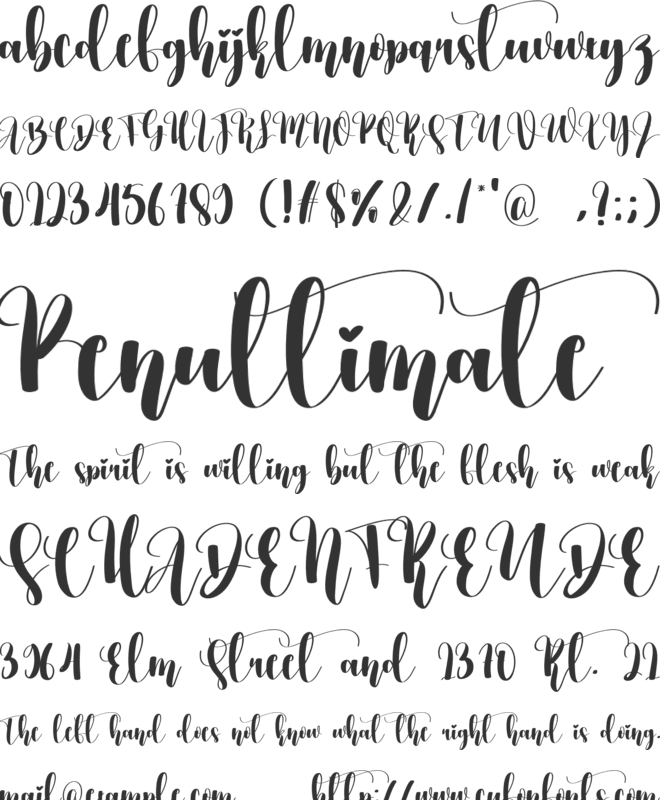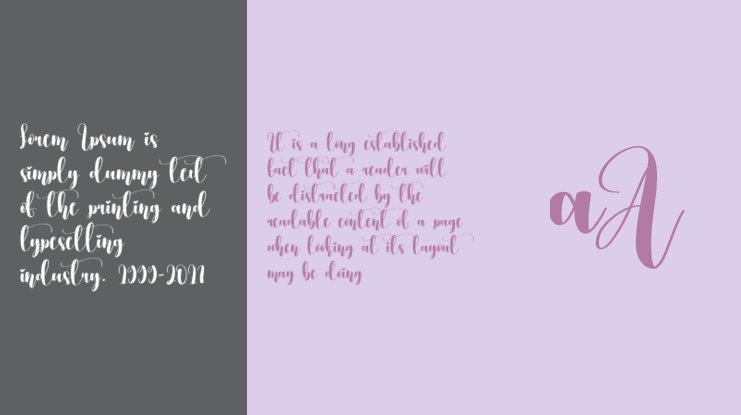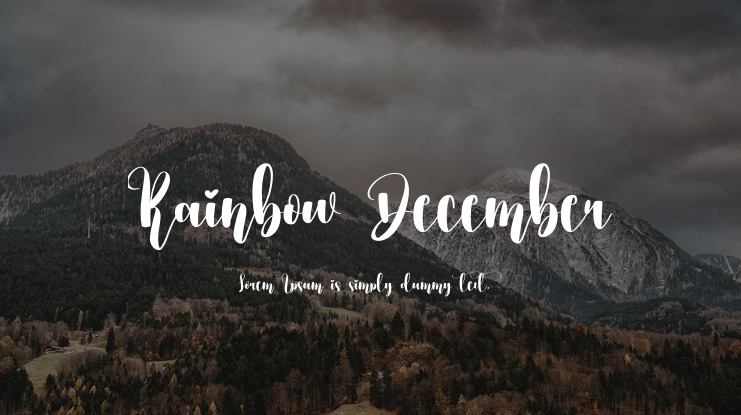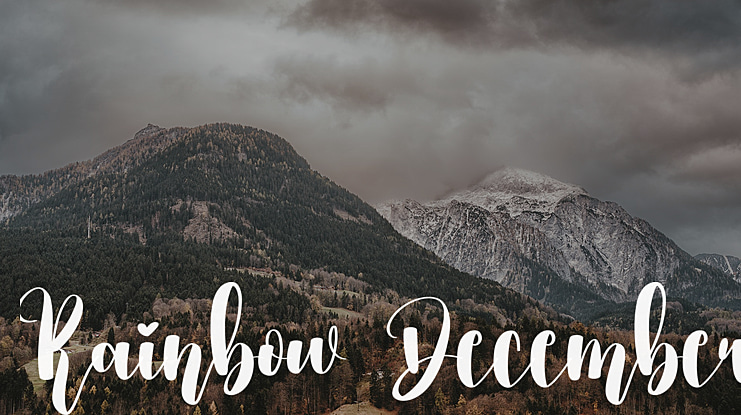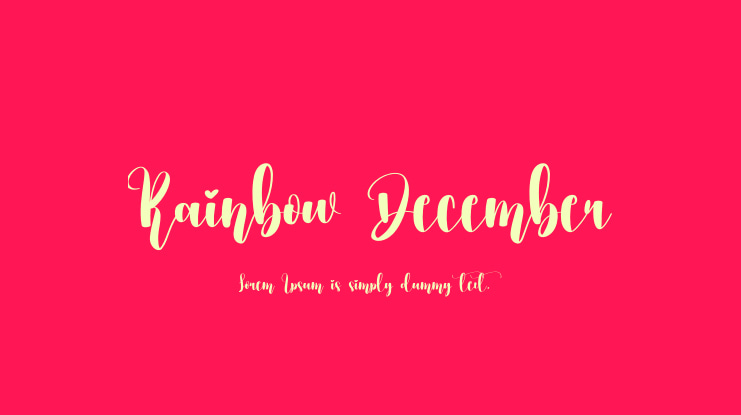
Rainbow December Font
DETAILSspecial creative products for you, our products will give you an extraordinary experience.the latest style letters are perfect for wall displays, wedding invitations, social media post logos, advertisements, product packaging, product designs, labels, photography, watermarks, invitations, stationery, and any project that requires taste handwriting.Links for license and contact:================================================== =========http:// https://scratchones.com/product/rainbow-december/gmail : ================================================== =========ATTENTION:WARNING!!!By installing or using this font, you agree to the Product Use Agreement:- This font has a FULL VERSION and is ONLY for PERSONAL USE. NO COMMERCIAL USE! - If you need CUSTOM PERMIT or COMPANY PERMIT please go to : ( www.scratchones.com )- Any donations are greatly appreciated. Paypal account for donations: ( www.paypal.me/scratchones )USE OF COMMERCIAL FONT WITHOUT PURCHASE OF LICENSEOFFICIAL www.scratchones.com will be fined 8X THE MINIMUM LICENSE FEES FROM THE LICENSE PRICE !!!!thanks.